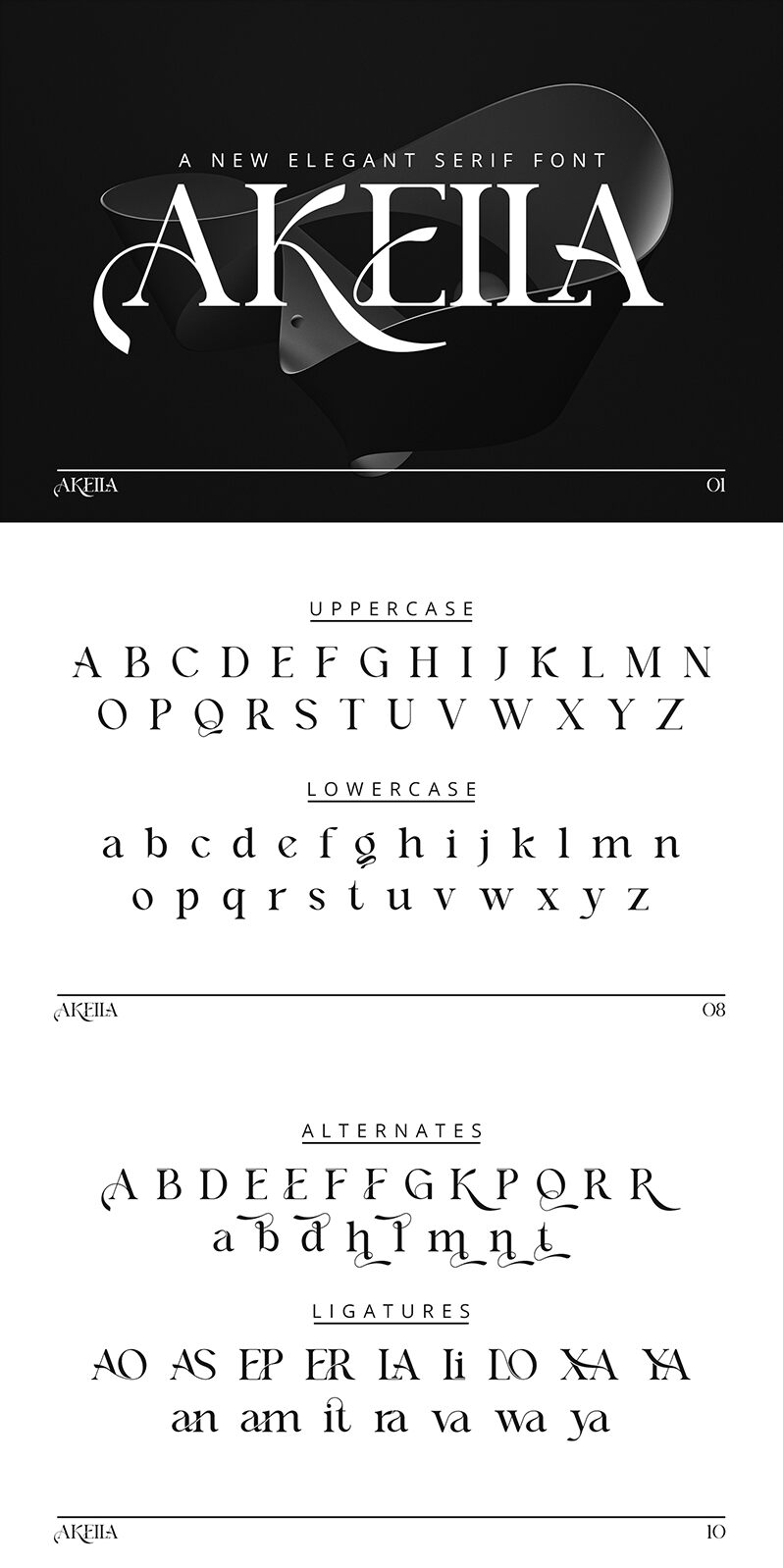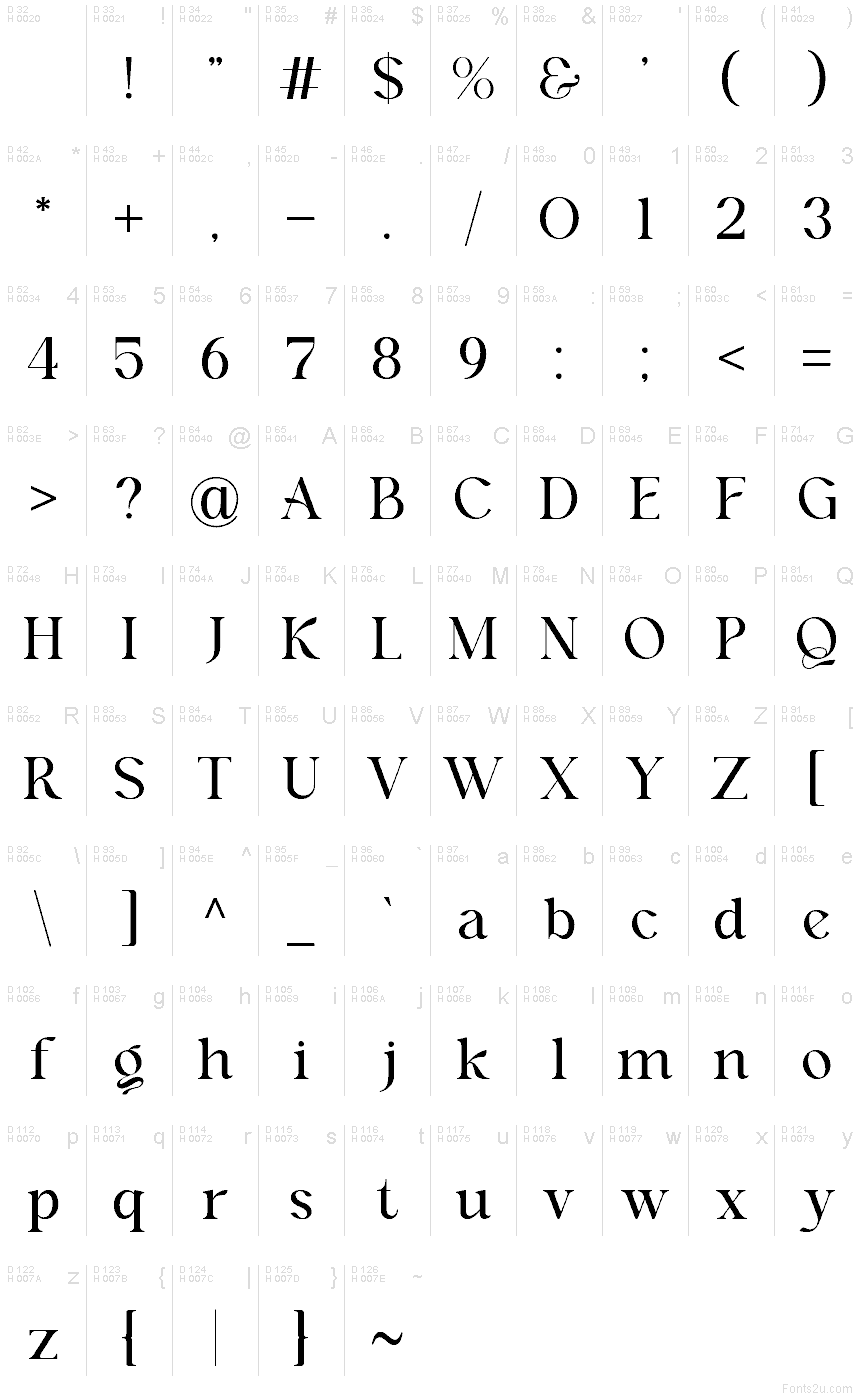
Akeila
Akeila font by Slide Shoot Type is a free serif typeface with a striking sculptural voice. Sharp, blade-like serifs meet silky, calligraphic curves, creating letters that feel both chiseled and fluid. Those carved interior cuts catch the eye without getting fussy, giving headlines a crisp snap while keeping text clear and elegant.
Using Akeila, you can bring runway-poise to beauty branding, fashion logos, editorial covers, packaging, posters, and invitations. Its rhythm feels polished and modern, so a little space lets the forms breathe—set it large and give it modest tracking. This free font also pairs beautifully with a calm grotesk sans for body copy, letting Akeila handle the statement while the sans supports the story.